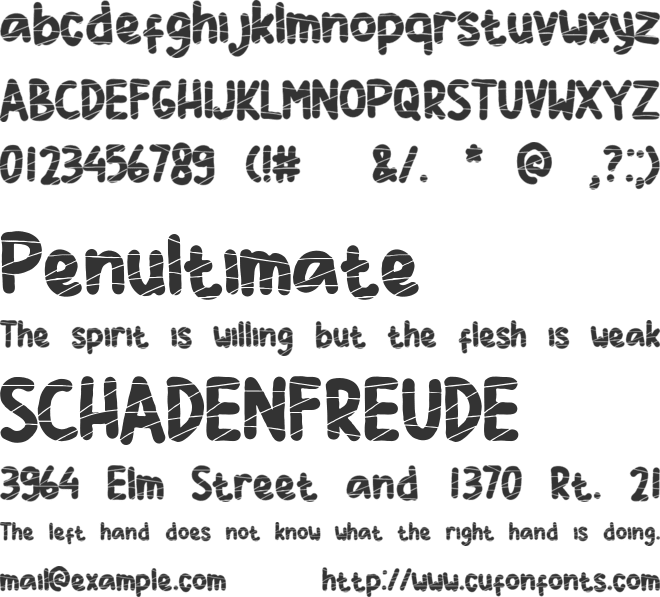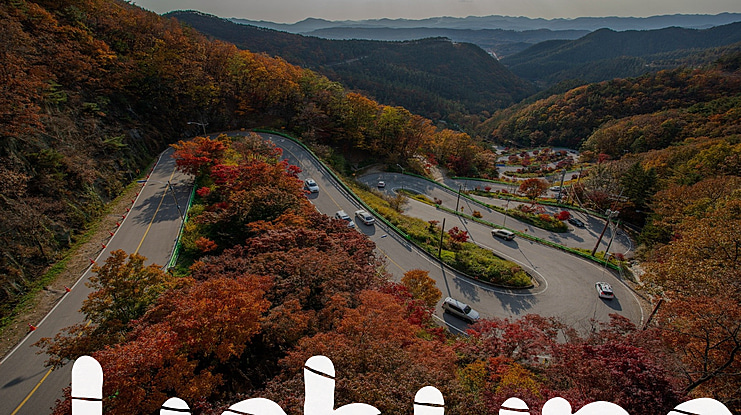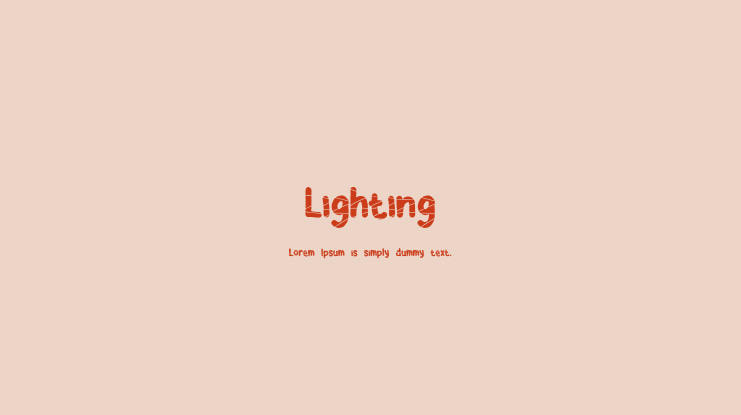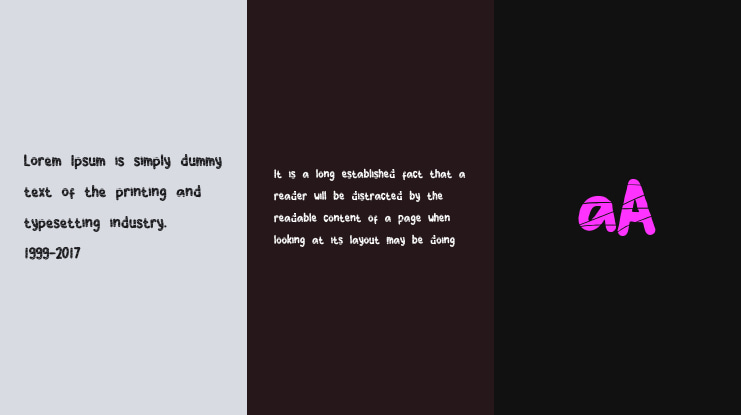
Lighting Font
Masyafi std
Lighting is a thick lettered and original display font. It has a simple and friendly touch and is the ideal font for a wide variety of informal designs.